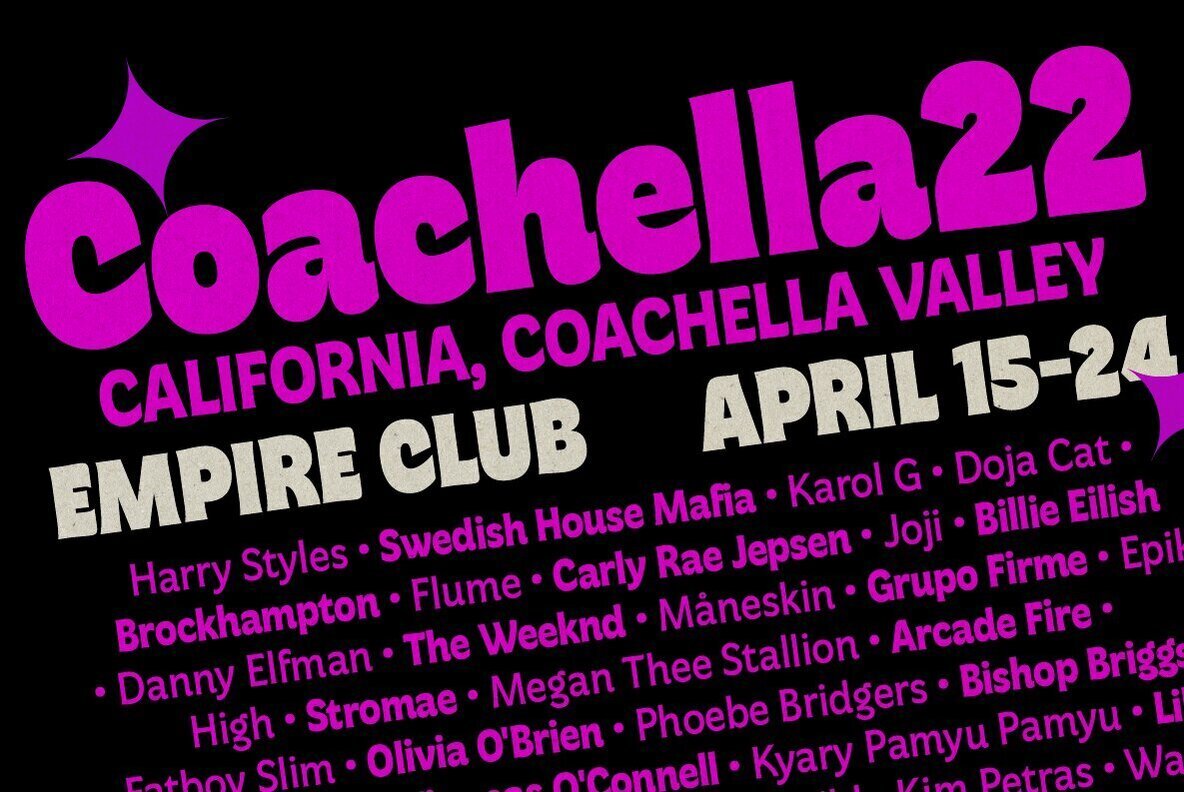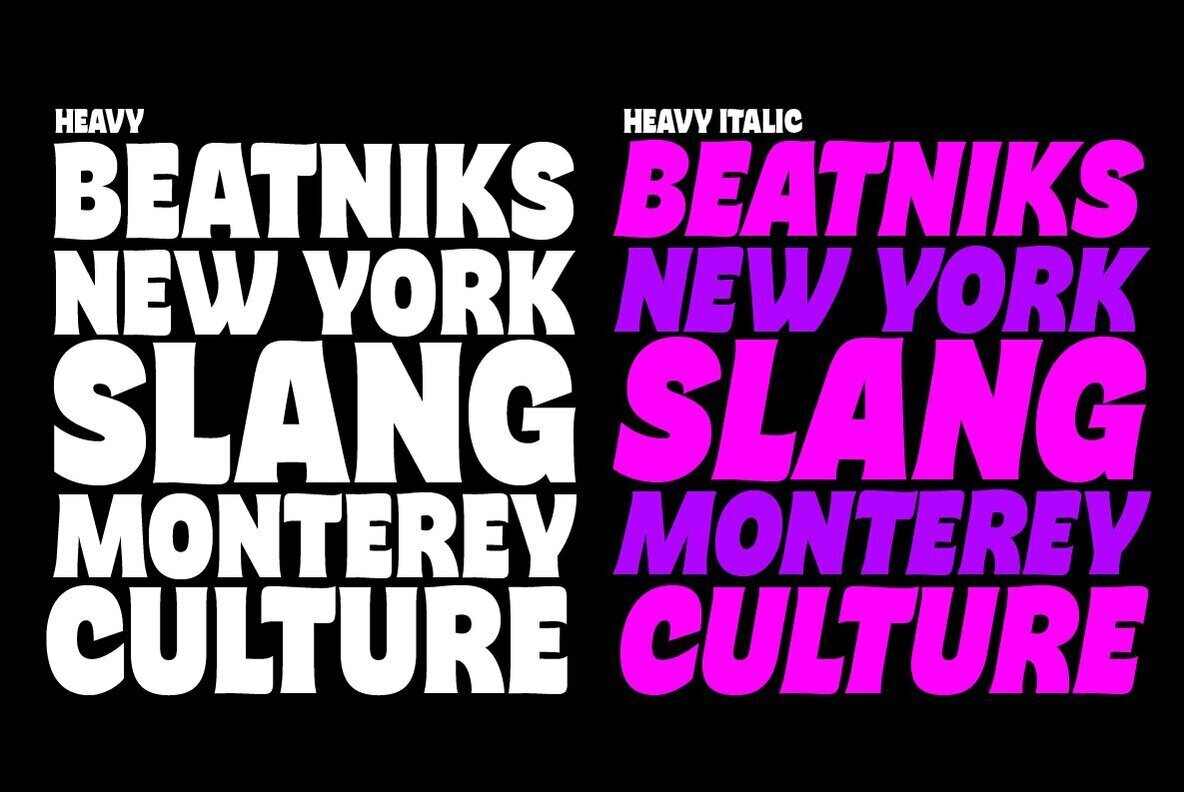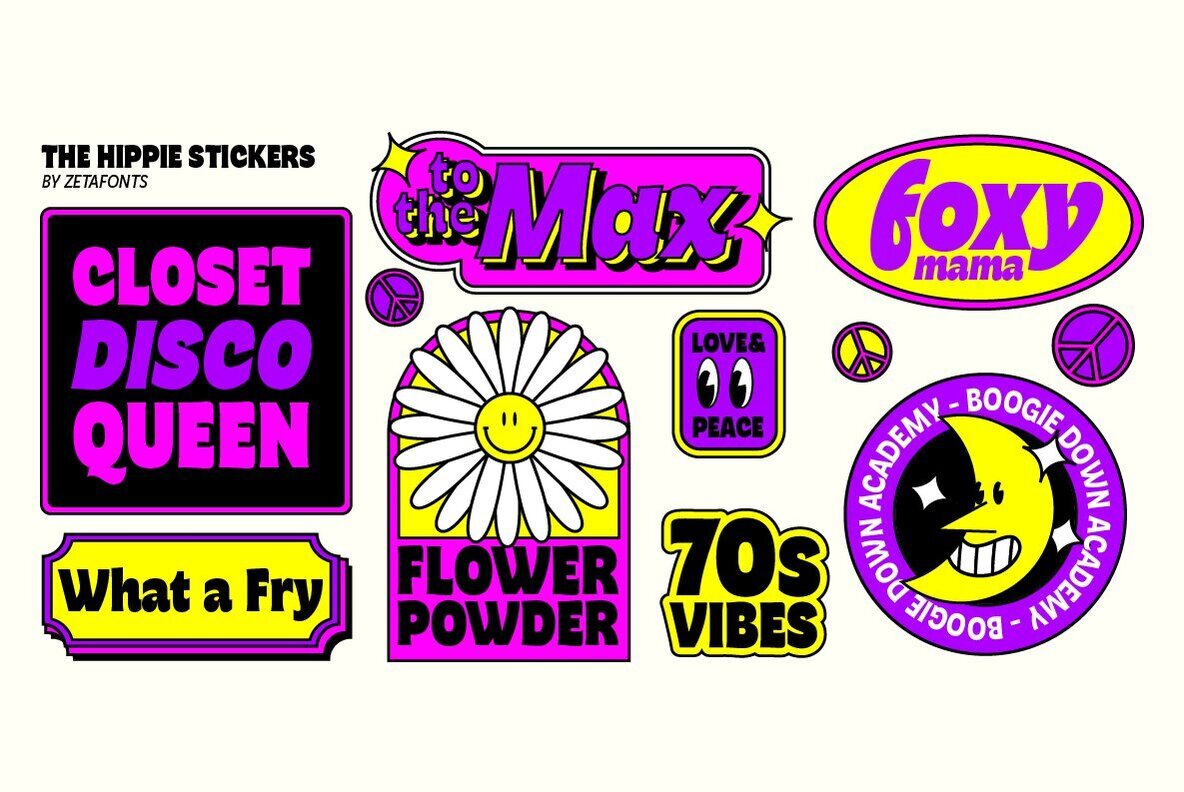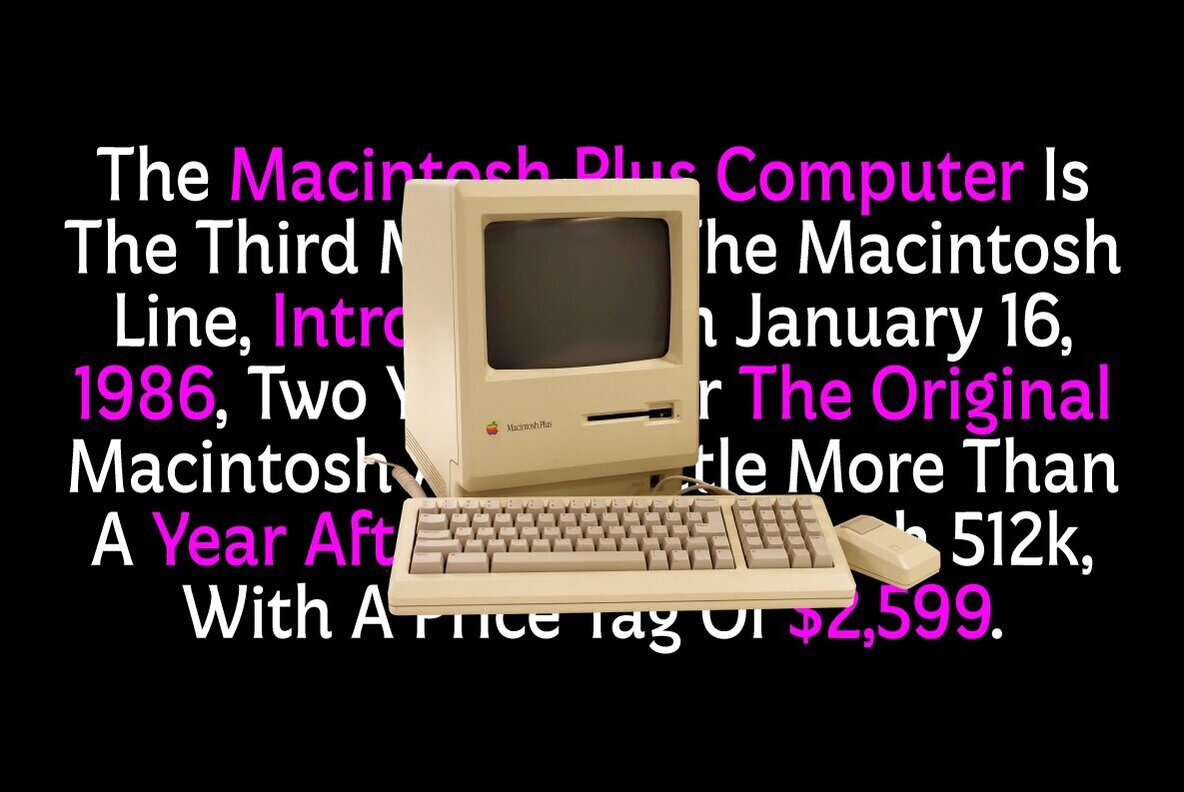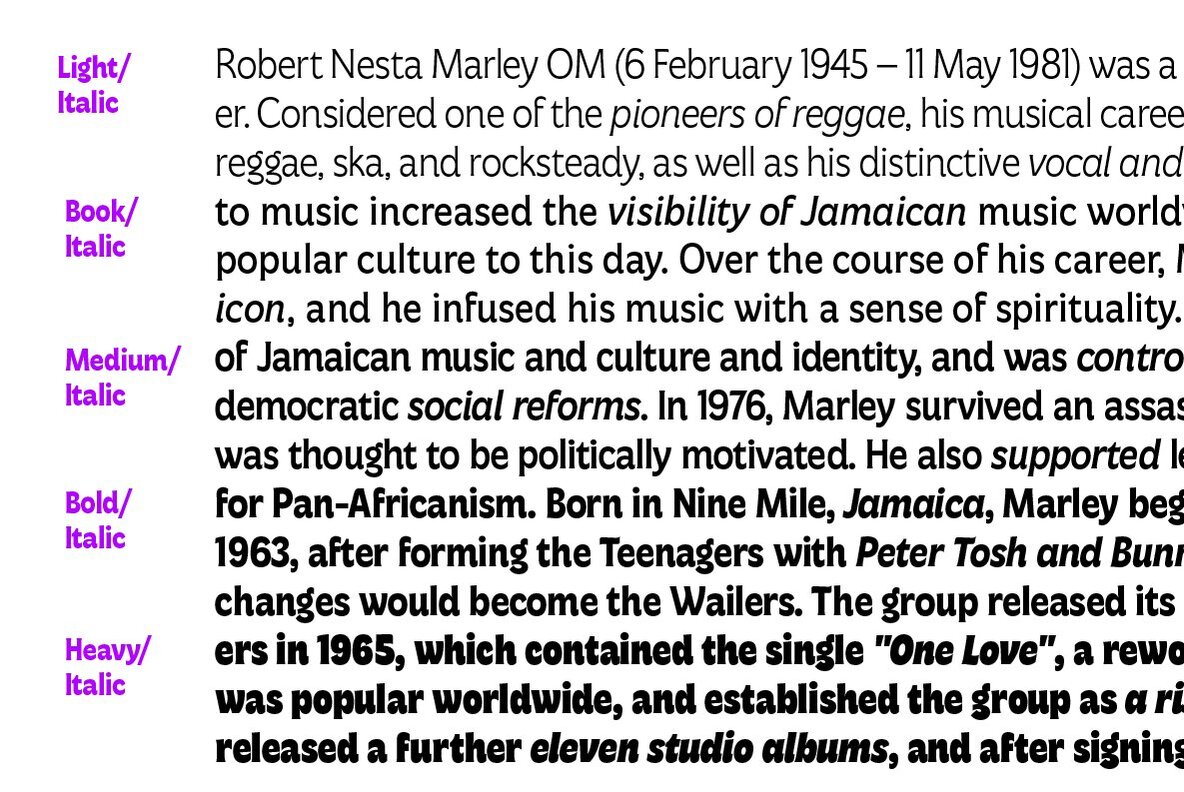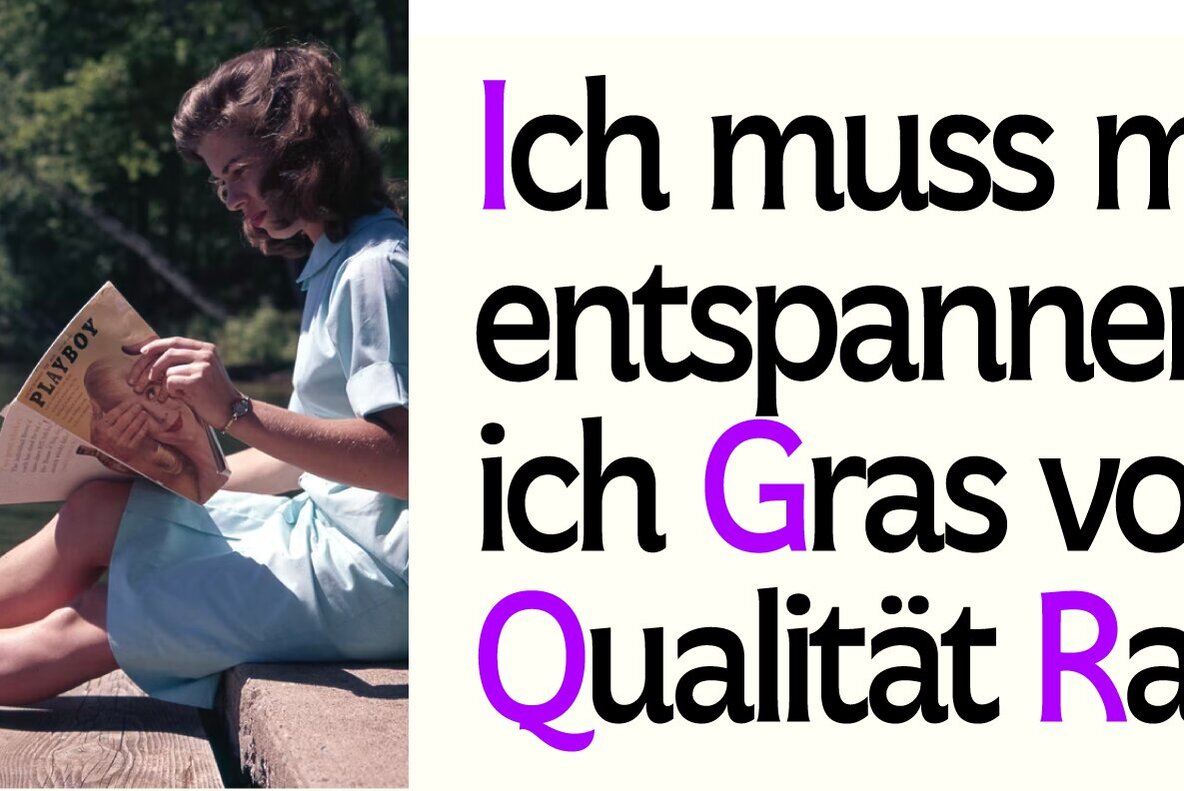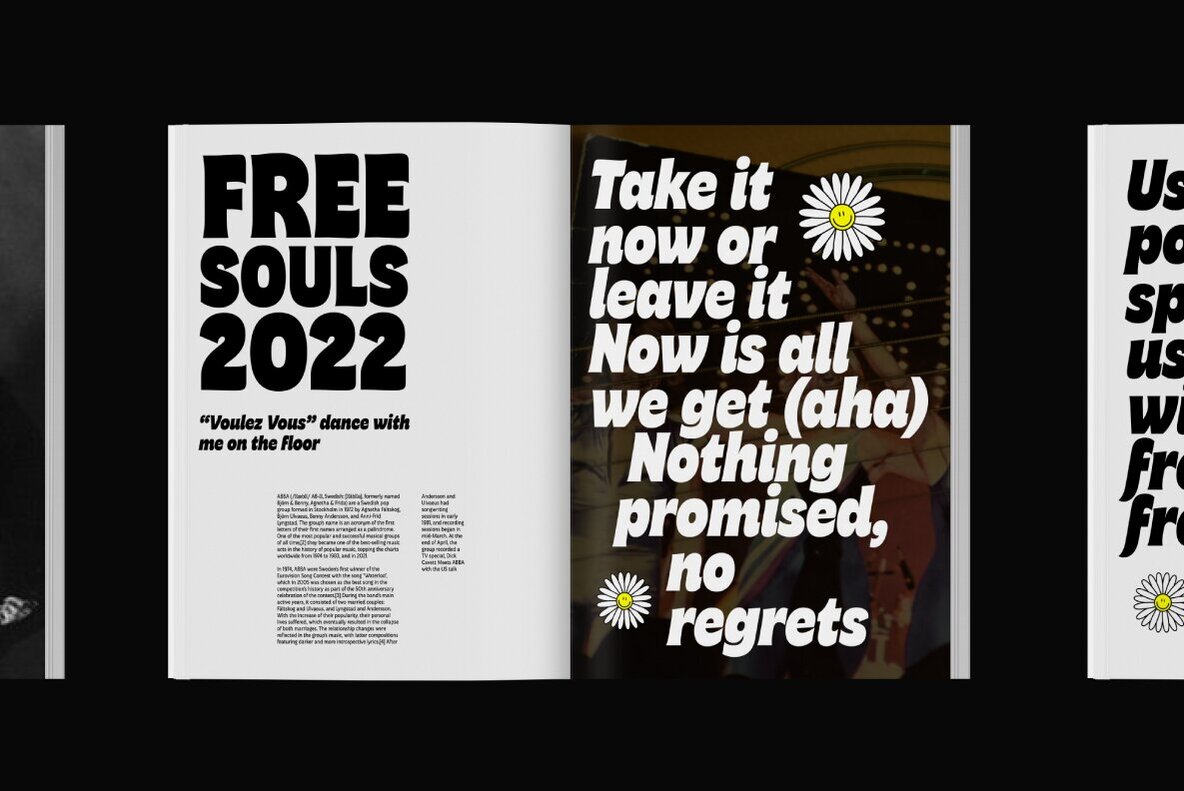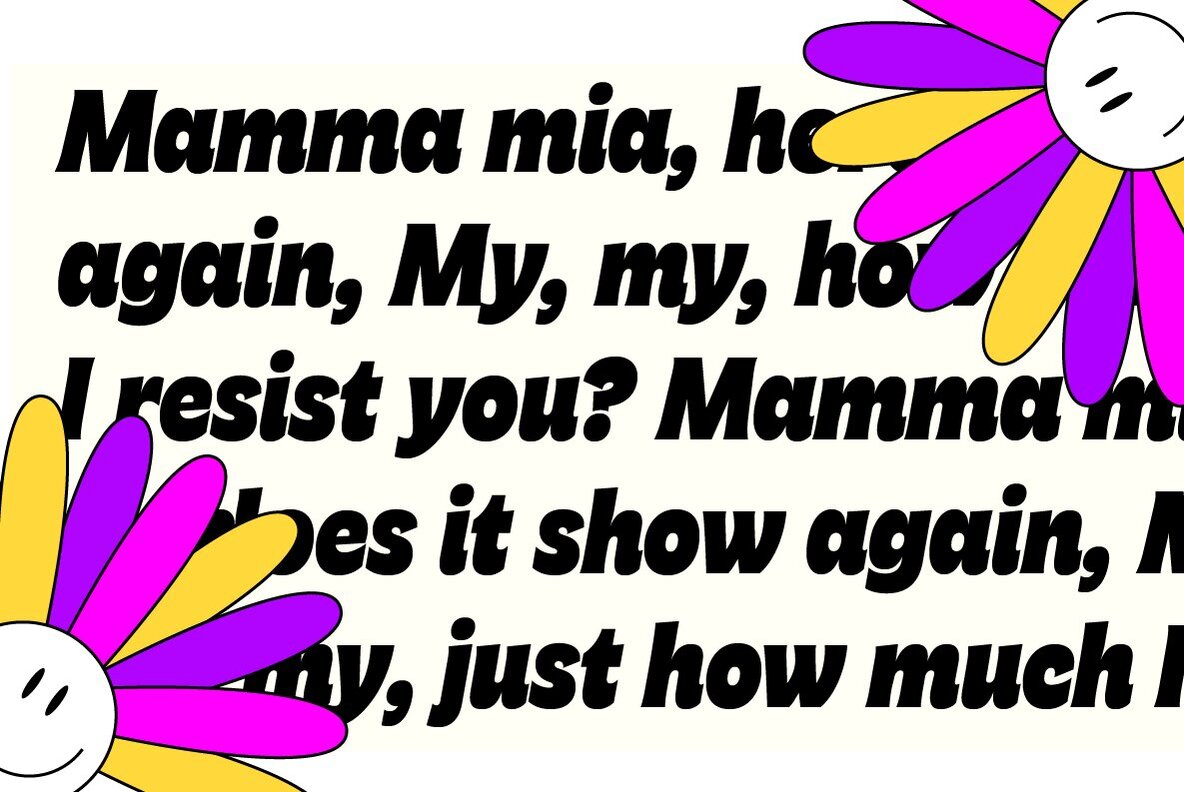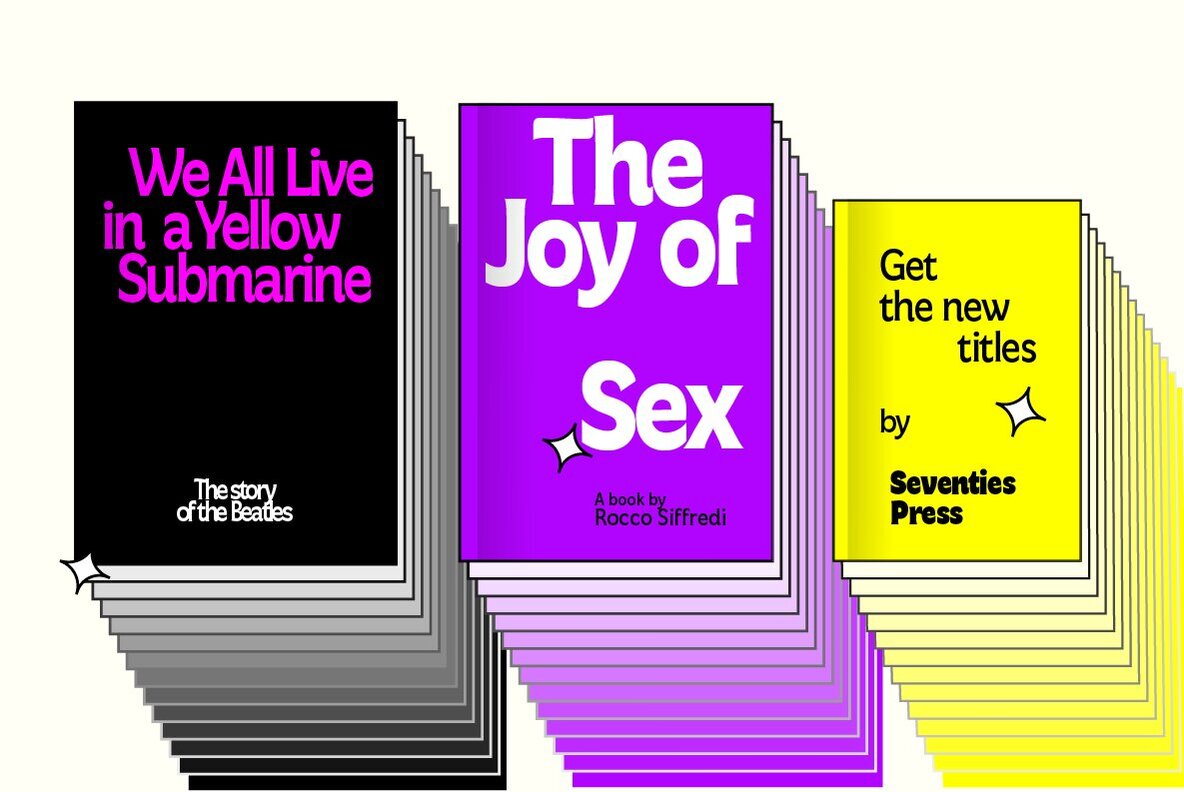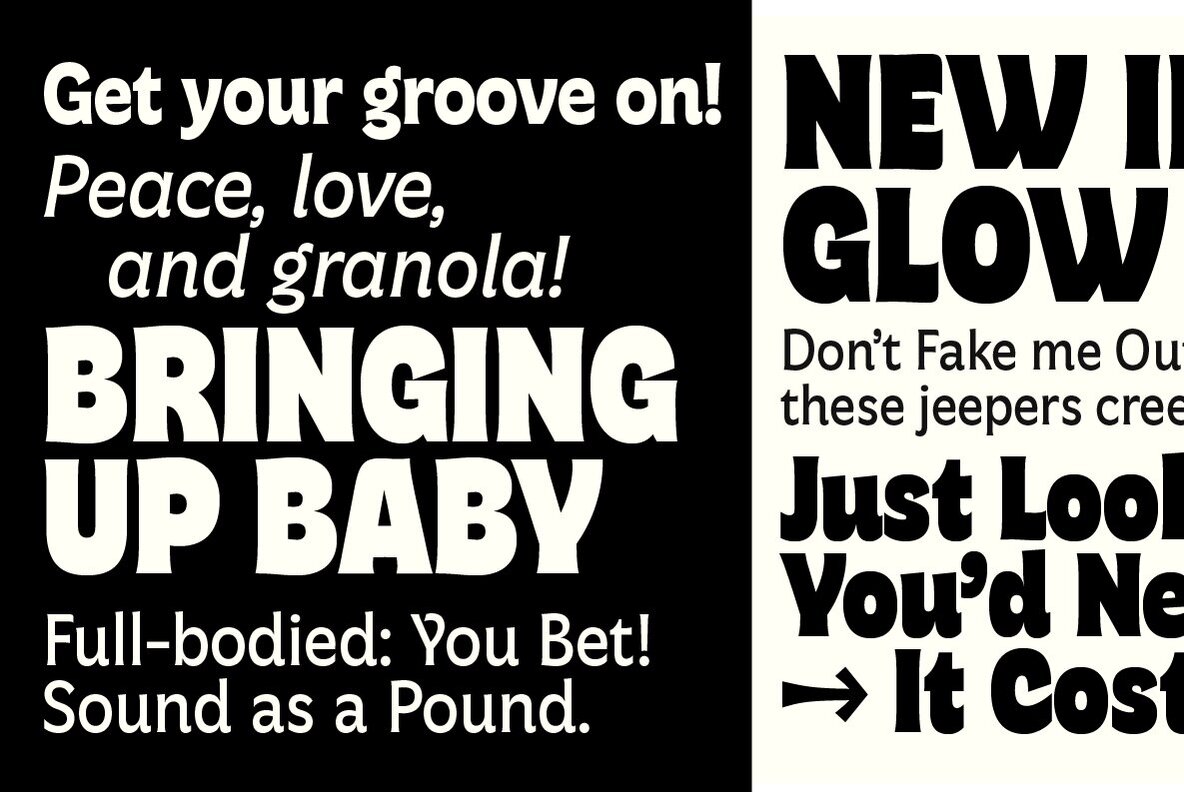
Freitag Font
Probably as a reaction to the pragmatism of modernist design, the seventies saw an explosion of buoyant, vivacious typography. Psychedelia fueled a return to the melting, lush shapes of Art Nouveau while Pop culture embraced the usage of funky, joyful lettering for advertising, product design and tv titling. New low-cost technologies like photo-lettering and rub-on transfer required new fonts to be expressive rather than legible, pushing designers to produce, bubbly, high-spirited masterpieces, where geometric excess and calligraphic inventions melted joyfully.
Freitag is Cosimo Lorenzo Pancini's homage to this era and its typography. His starting point was the design of a heavy sans serif with humanist condensed proportions, flared stems and reverse contrast, that generated both the main family, and a variant display subfamily.
The main typeface family slowly builds the tension and design exuberance along the weight axis - a bit like our desire for the weekend increases during the week. In Light and Medium weights the font shows a more controlled, medium-contrast design, tightly spaced for maximum display effect. The Book weight follows the same design but uses a more relaxed letter spacing to allow usage in smaller sizes and short body copy. As weight increases in the Bold weight the style becomes more expressive, with a visible reverse contrast building up and culminating in the Heavy weight with his clearly visible "bell bottoms" feel.
In the display sub-family the design is pushed further by introducing variant letterforms that have a stronger connection to calligraphy and lettering. Also, the weight range becomes a optical one, with weights marked as Medium, Large, XLarge, as bringing the contrast and the boldness to the extreme creates smaller counterspaces that require bigger usage sizes. Another important addition of the display subfamily is the connected italics that sport swash capitals and cursive letterforms, developed with logo design and ultra-expressive editorial design in mind. To balance the extreme contrast in the XL weight, contrast of punctuation is reduced, creating a rich, highly-dynamic texture wherever diacritics and marks are used in the text.
The full family includes 16 styles + 4 variable fonts, allowing full control of the design over its tree-hugging design space. All 20 fonts share an extended latin charset with open type features including case sensitive forms, single and double story variants and alternate glyphs.
According to its creator, "Freitag is the typeface that sounds like an imaginary Woodstock where on the stage with Jimi Hendrix with Novarese, Motter, Excoffon and Benguiat playing onstage with Jimi Hendrix". Jeepers creepers!